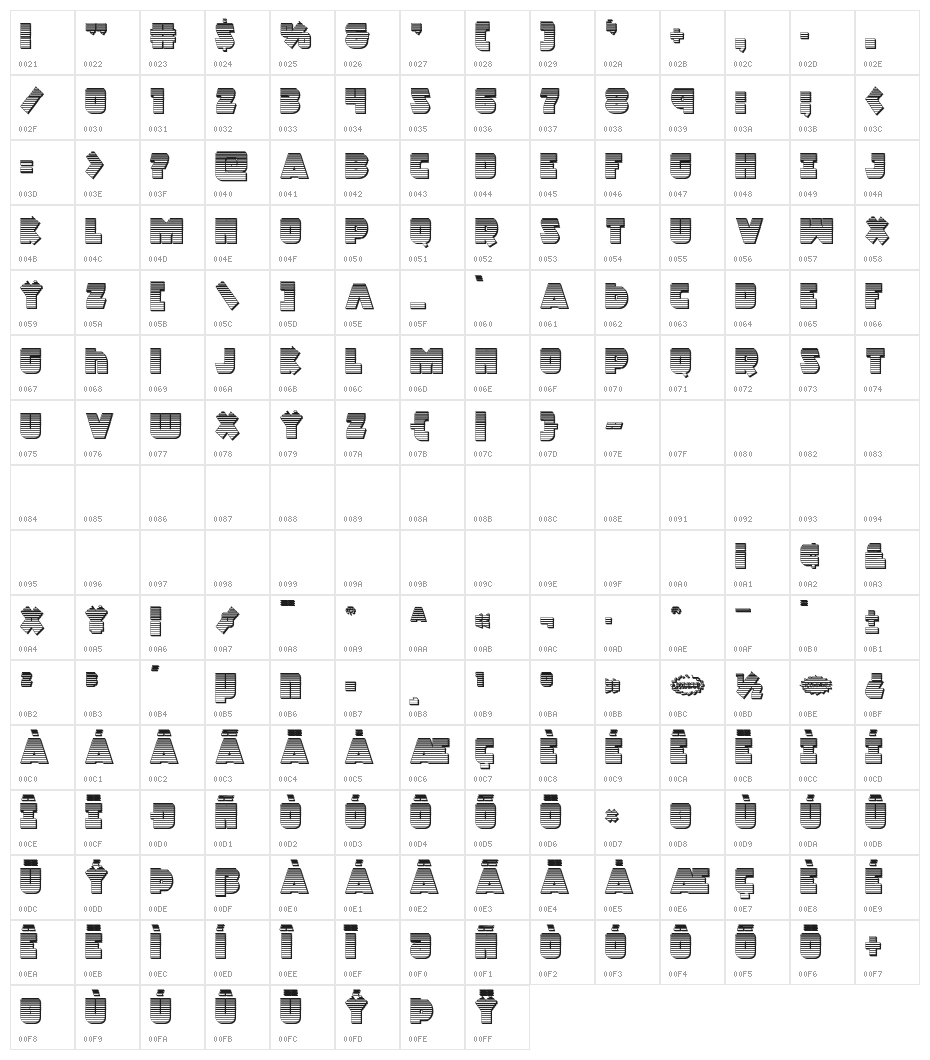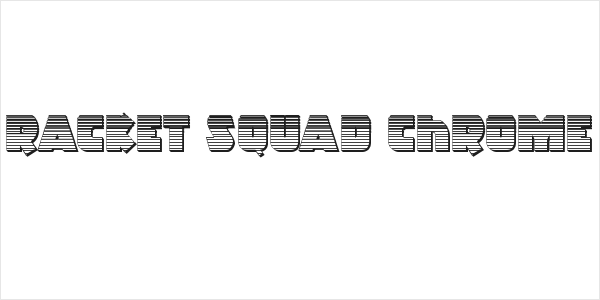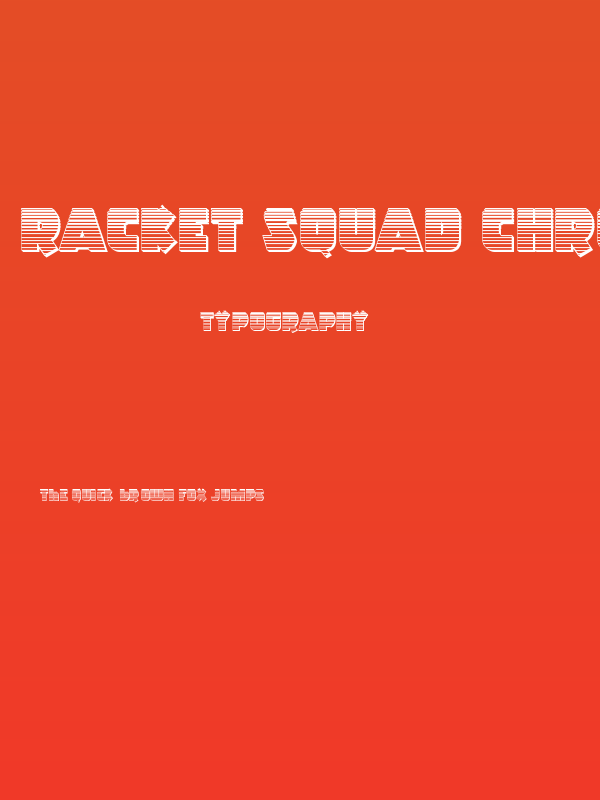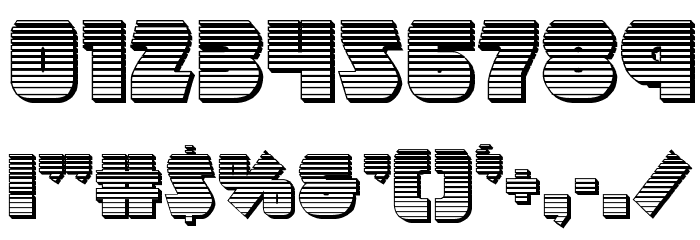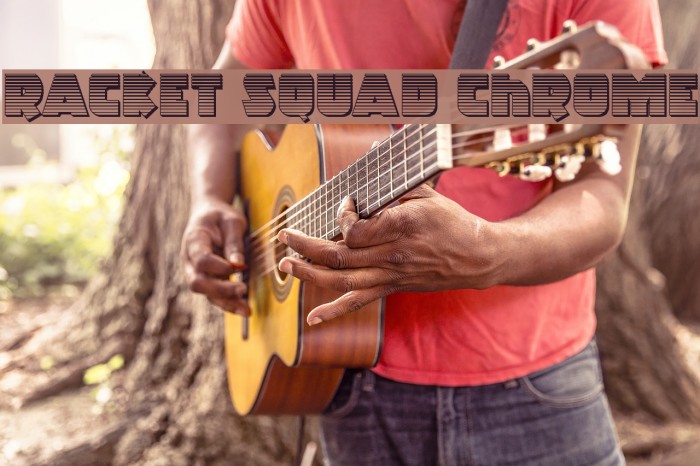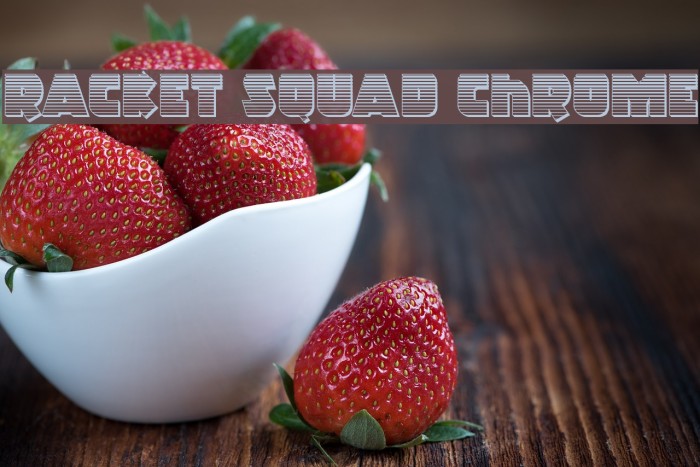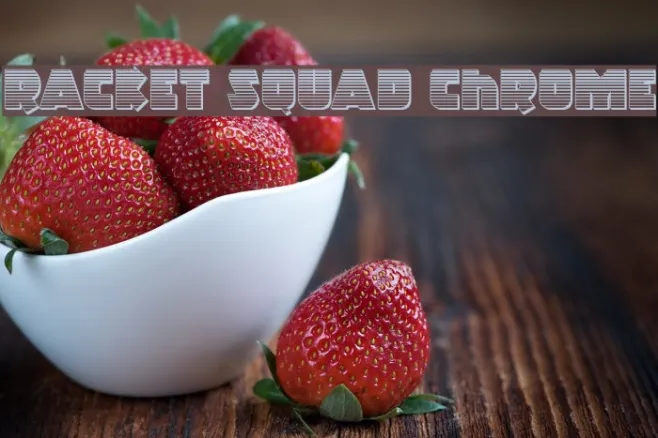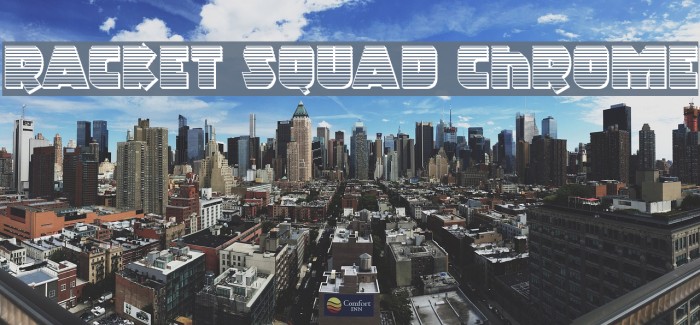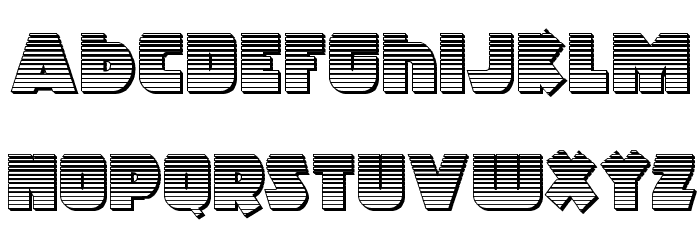
Racket Squad Chrome Font
Racket Squad Chrome Description
This font features a bold, decorative style with a unique striped pattern running horizontally across each character. The design gives a three-dimensional, chrome-like effect, making it stand out with a futuristic and industrial vibe. Each letter and number is crafted with precision, maintaining a consistent width and height, while the special characters complement the overall aesthetic. The font's boldness and distinct style make it ideal for eye-catching designs.
| Overall Style | Futuristic, Industrial |
| Proposed Projects | Ideal for futuristic posters, video game titles, tech-themed branding, and any project needing a standout, industrial look. |